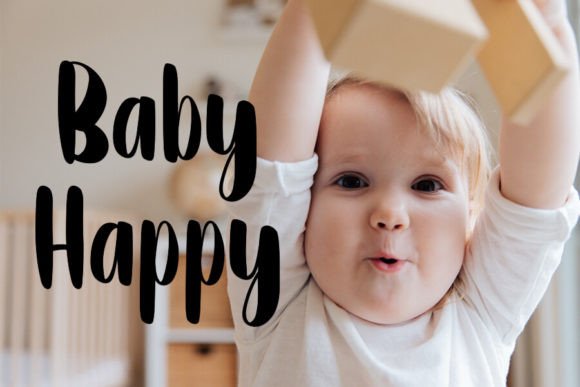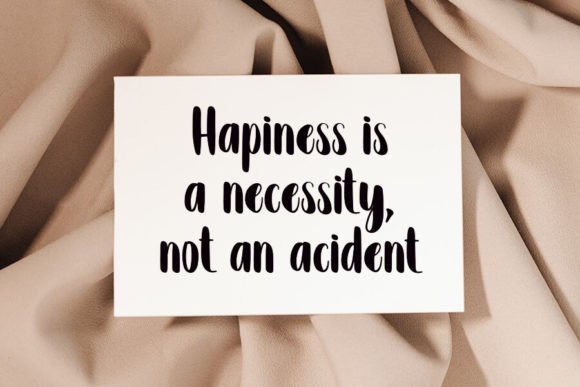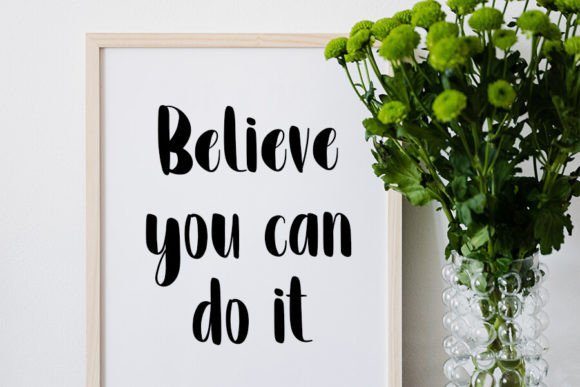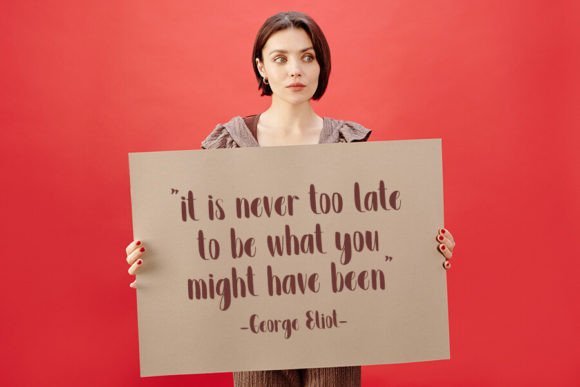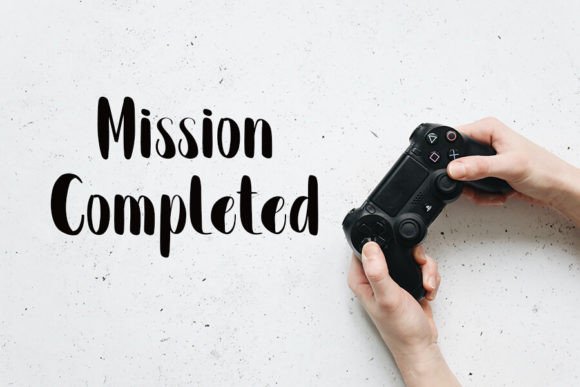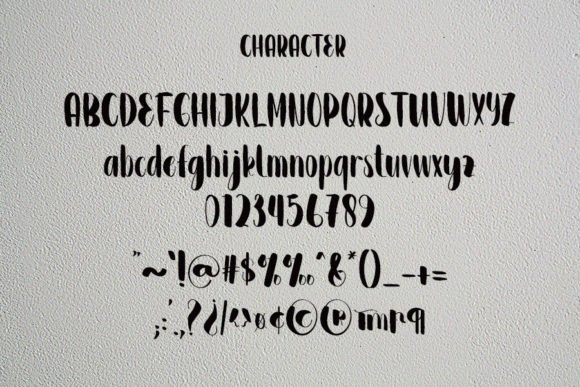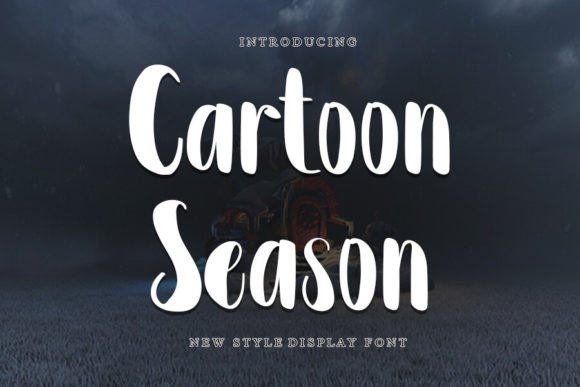
Introducing Cartoon Season Font: Elevate Your Designs with Timeless Elegance
In the world of typography, a font can make or break a design. It’s the foundation upon which your creative vision is built, and choosing the right one can elevate your project from ordinary to extraordinary. If you’re on the hunt for a stylish display font that exudes a contemporary atmosphere while paying homage to timeless classic calligraphy, look no further than Cartoon Season Font. This beautifully crafted font is designed to enhance the beauty of your projects, offering a perfect blend of balance, variety, and elegance.
The Inspiration Behind Cartoon Season Font
Cartoon Season Font draws its inspiration from the classic calligraphy that has stood the test of time. The creators aimed to capture the essence of traditional calligraphic techniques while infusing the font with a modern twist. The result is a stylish display font that not only pays tribute to its roots but also feels refreshingly contemporary. This blend of old and new makes Cartoon Season Font versatile and suitable for a wide range of design projects.
Key Features of Cartoon Season Font
So, what sets Cartoon Season Font apart from other fonts in its category? Here are some of its key features:
• Contemporary Atmosphere: Despite being inspired by classic calligraphy, Cartoon Season Font boasts a clean and modern look that fits perfectly into today’s design trends.
• Impeccable Form: The font’s design focuses on impeccable form, ensuring that every letter and glyph is crafted with precision and attention to detail.
• Balanced and Varied: Cartoon Season Font is carefully balanced and offers a variety of glyphs and ligatures, making it highly versatile for different design applications.
• PUA Encoded: Being PUA (Private Use Area) encoded, this font allows easy access to all the amazing glyphs and ligatures, providing designers with a wide range of creative possibilities.
Applications of Cartoon Season Font
The versatility of Cartoon Season Font makes it suitable for a multitude of design projects. Here are some of the areas where this font truly shines:
• Branding and Logos: Create memorable and stylish logos that stand out. The unique and elegant design of Cartoon Season Font can help establish a strong brand identity.
• Advertising and Marketing Materials: Whether it’s a billboard, brochure, or digital ad, this font can add a touch of sophistication and appeal to your marketing materials.
• Packaging: Make your product packaging stand out on the shelves with Cartoon Season Font. Its stylish and contemporary look can add a premium feel to your products.
• Digital Media: From social media graphics to website headers, Cartoon Season Font can enhance the visual appeal of your digital content.
Why Choose Cartoon Season Font?
With so many fonts available, why should Cartoon Season Font be your go-to choice? Here are a few compelling reasons:
• Unique Style: Cartoon Season Font offers a unique blend of classic and modern styles, making it a standout in any design.
• Ease of Use: Thanks to its PUA encoding, using Cartoon Season Font is straightforward. You can easily access a wide range of glyphs and ligatures without any hassle.
• High Versatility: This font’s versatility means it can be used across various design projects, from branding to digital media.
• Support for Creativity: Cartoon Season Font provides designers with the tools to explore their creativity, allowing for the creation of visually stunning projects.
Cartoon Season Font is more than just a stylish display font; it’s a tool that can elevate your designs to new heights. With its perfect blend of timeless elegance and contemporary style, impeccable form, and versatile applications, it’s an excellent choice for designers and crafters looking to add a touch of sophistication to their projects. Whether you’re working on branding, advertising, packaging, or digital media, Cartoon Season Font is sure to enhance the beauty of your creations. So, why wait? Explore the creative possibilities with Cartoon Season Font today and take your designs to the next level.